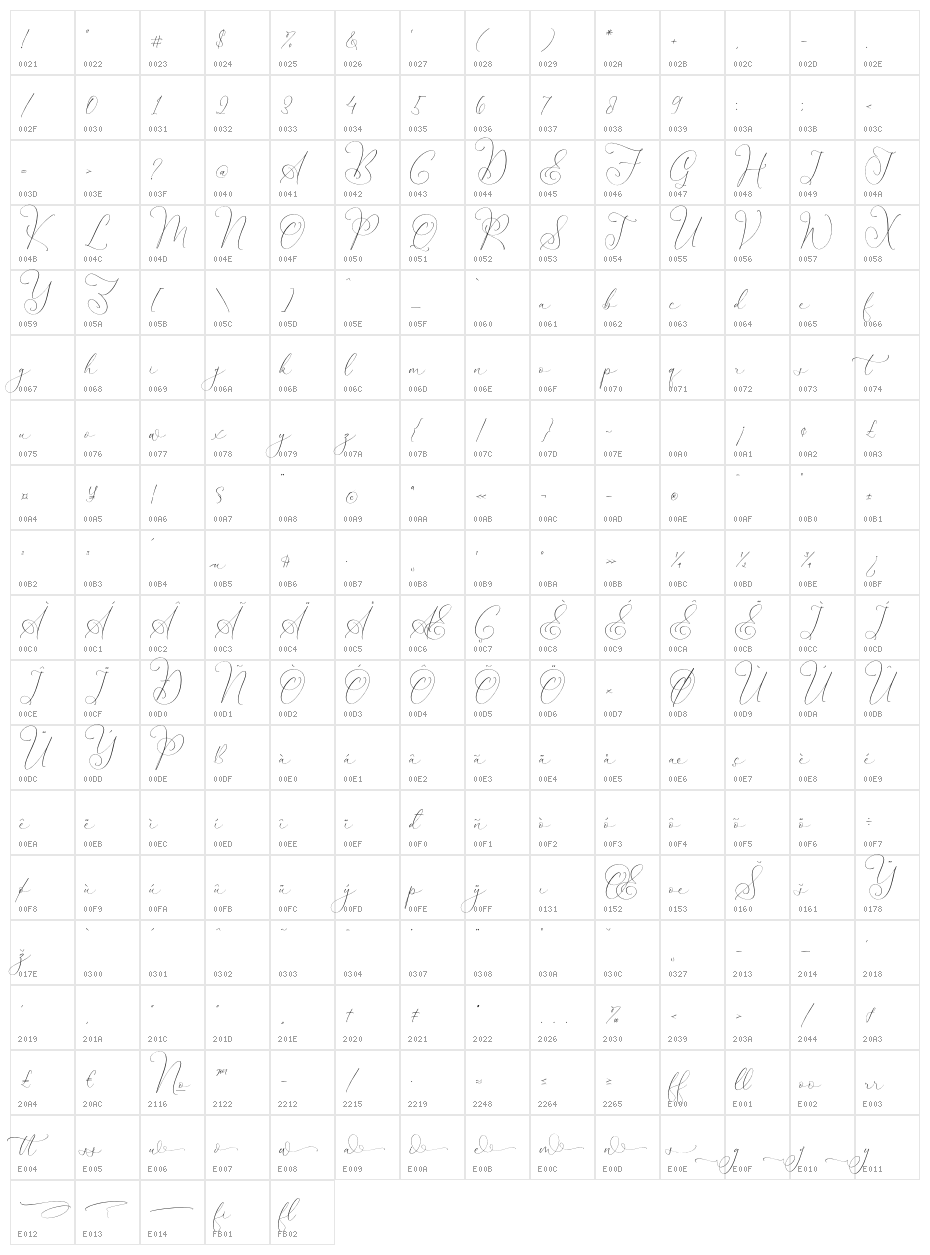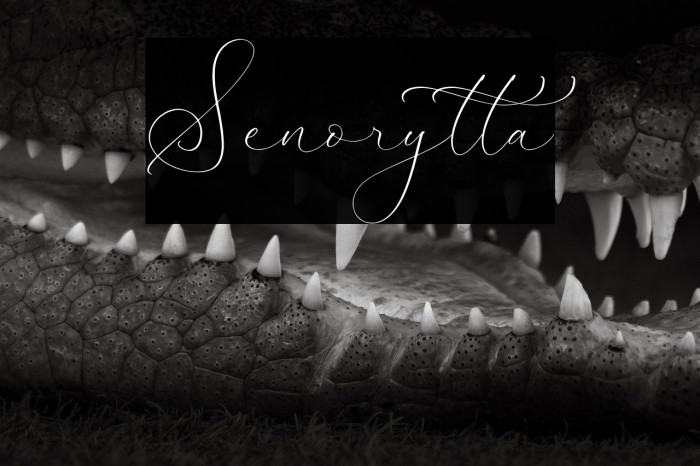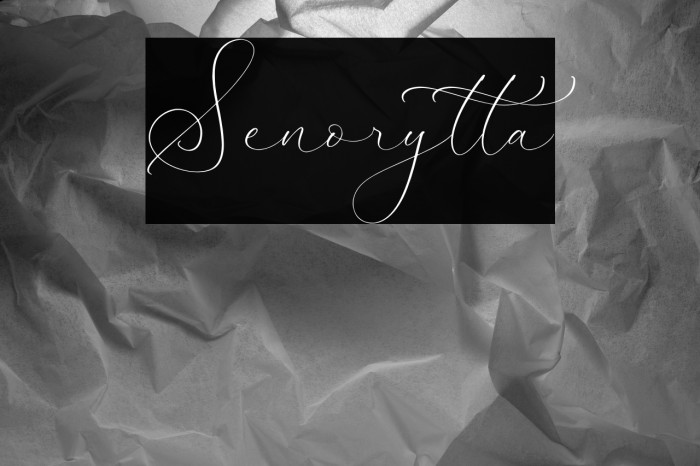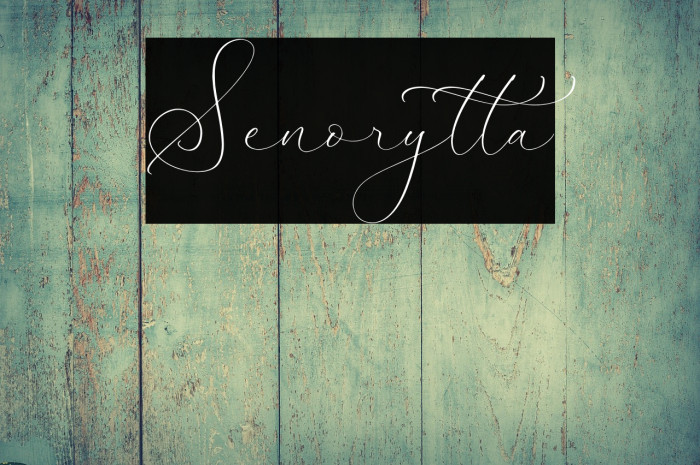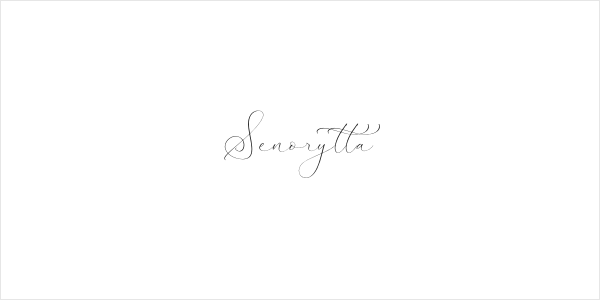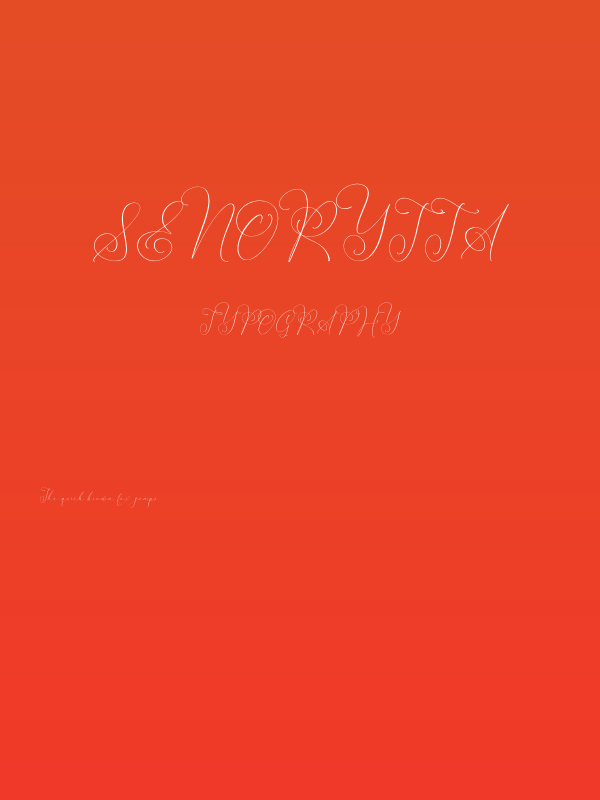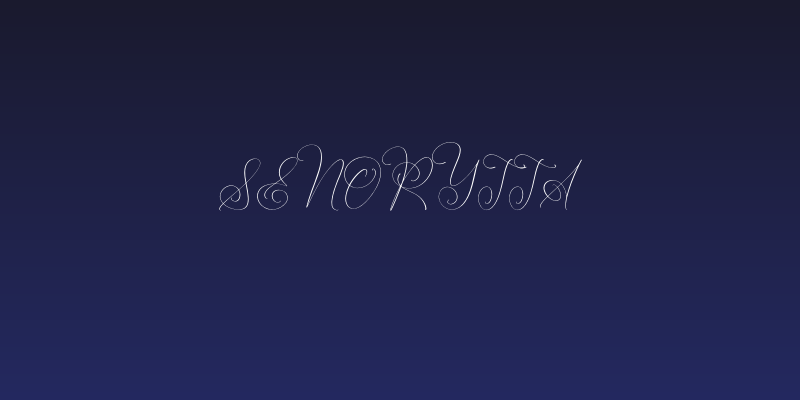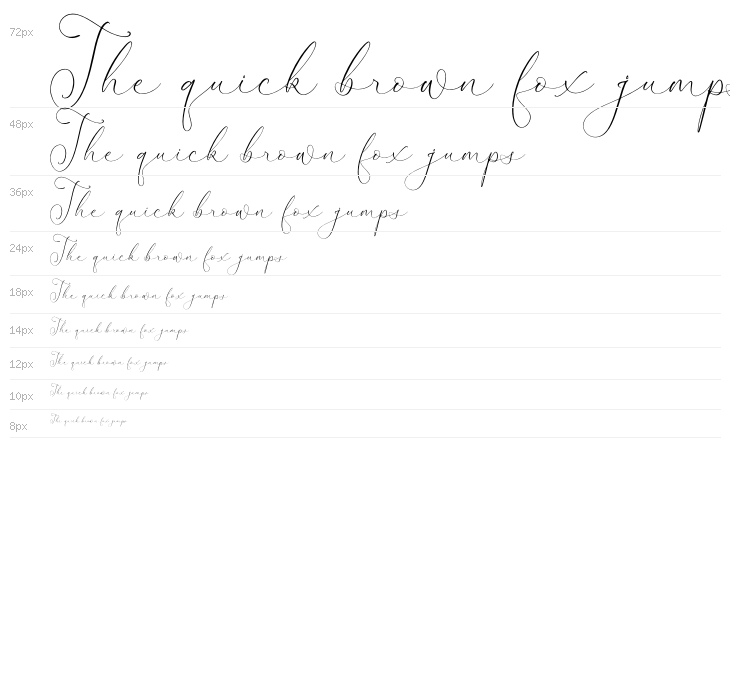
Senorytta Font
Senorytta Description
Elegant and flowing script font with delicate, swirling strokes and high contrast.
| Use Case | Logos, Invitations |
| Proposed Projects | Wedding invitations, elegant branding, personal stationery. |